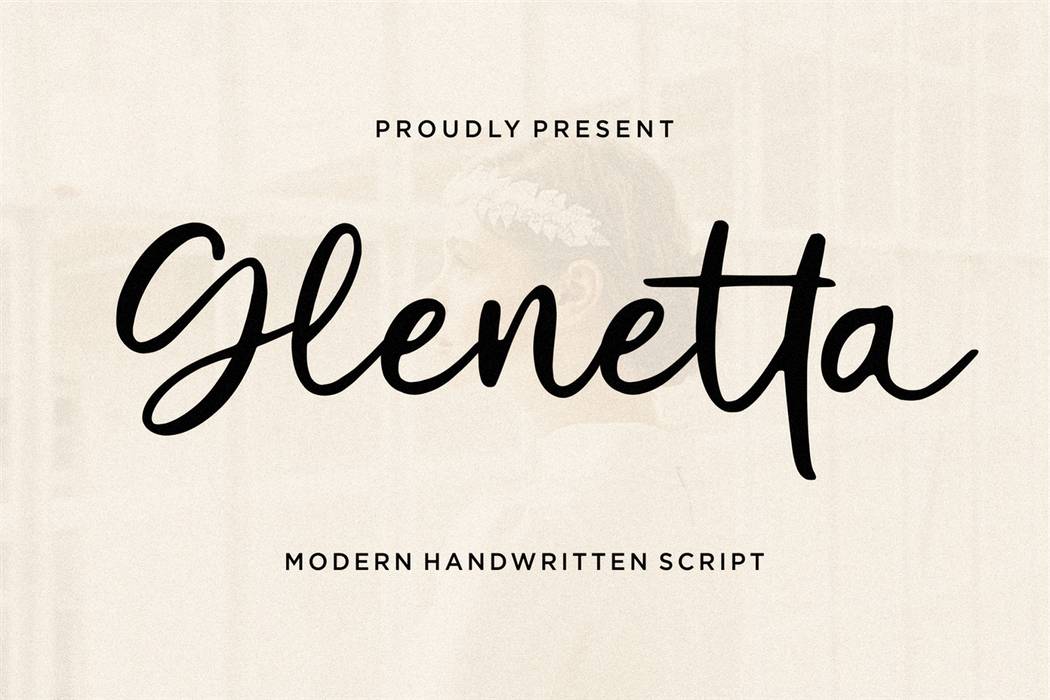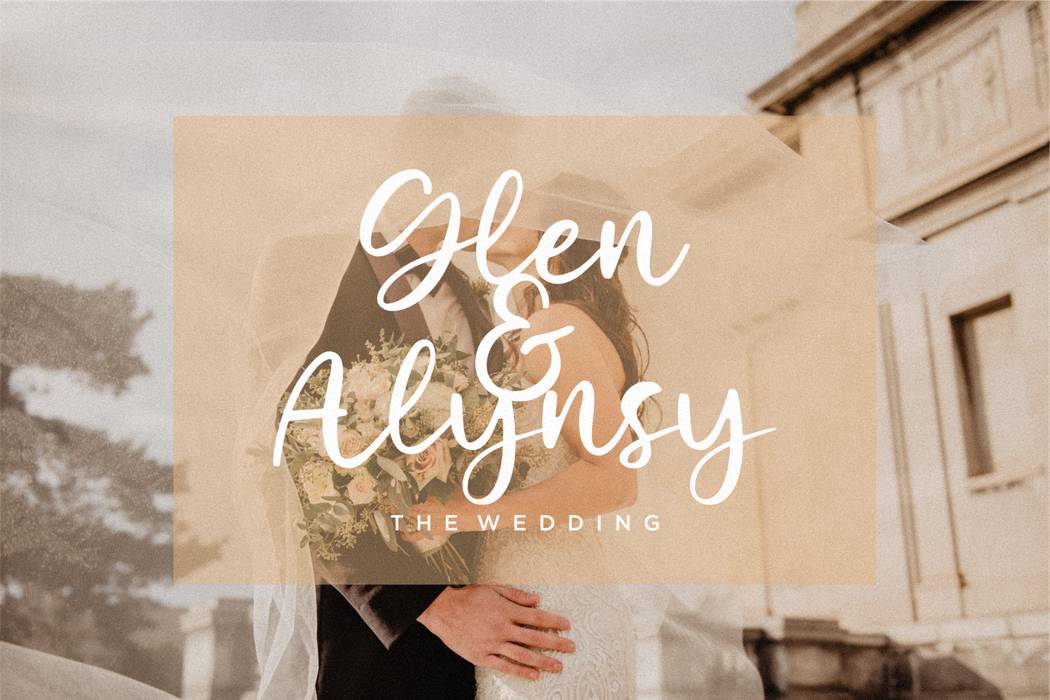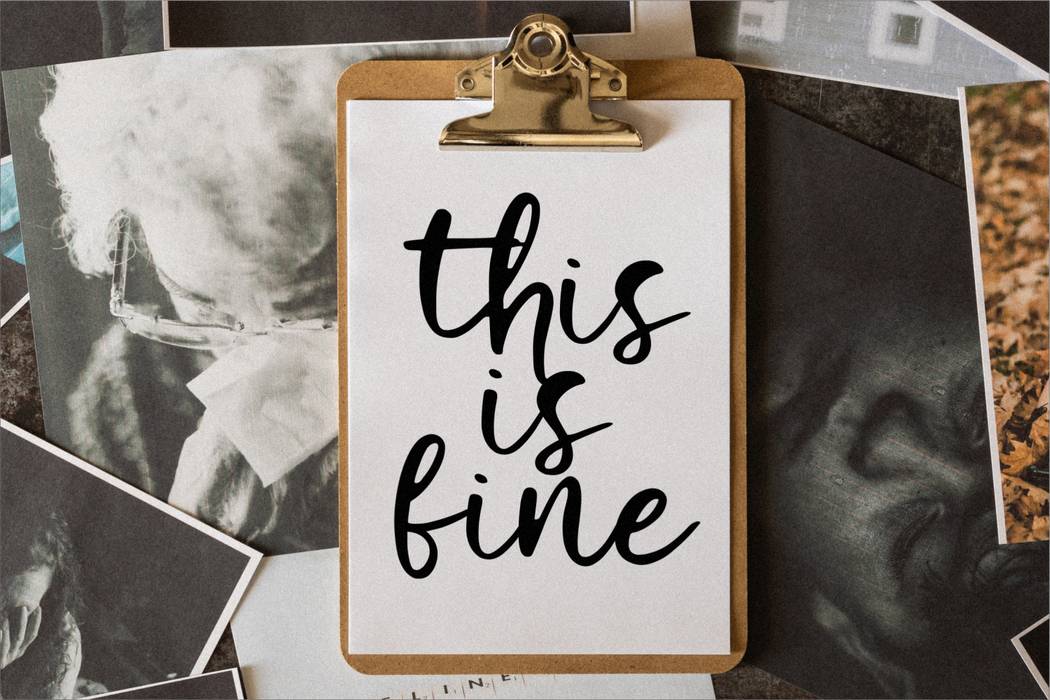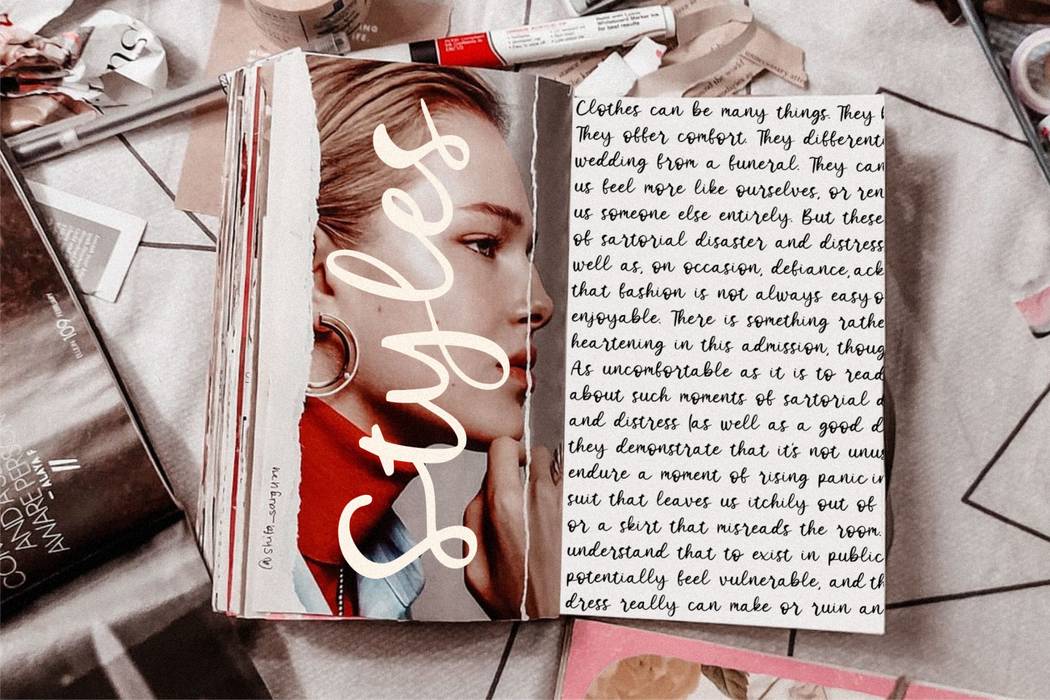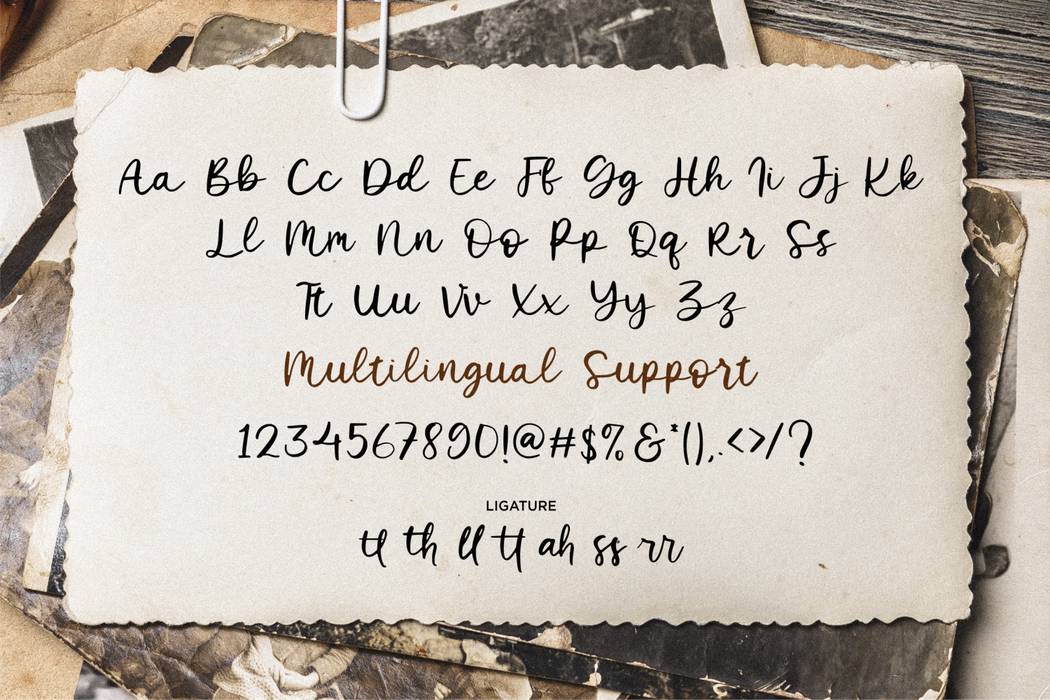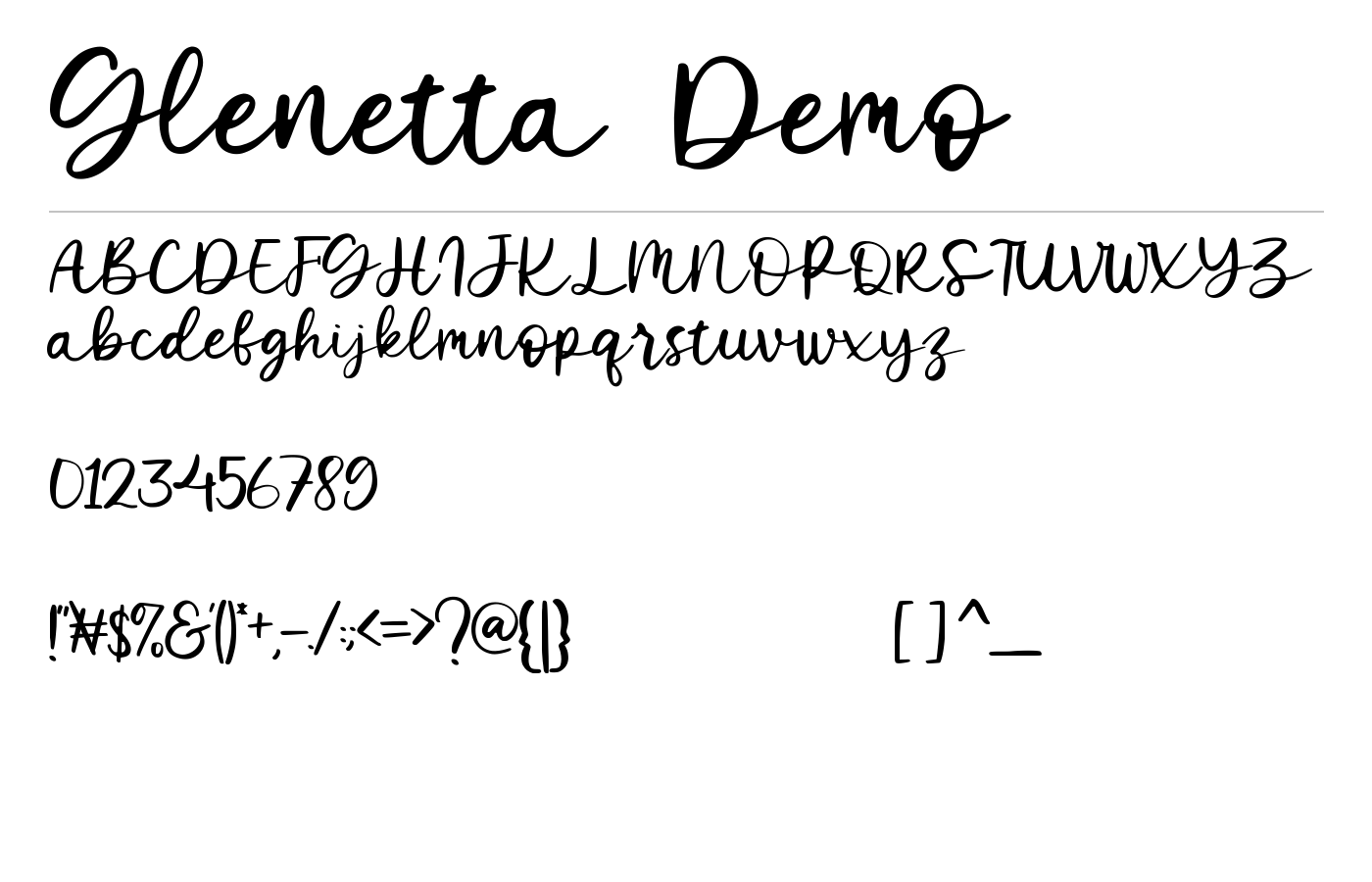
Glenetta is a playful and elegant script font with a casual, handwritten feel that combines smooth, flowing strokes with a slightly whimsical character. Its moderate weight and consistent stroke make it perfect for adding a personal and friendly touch to branding, invitations, or social media graphics, while its clear letterforms ensure readability in both headlines and short text blocks. This font works best where warmth and personality are needed, bringing a charming and approachable style to creative projects.
Glenetta Font
About Glenetta Font